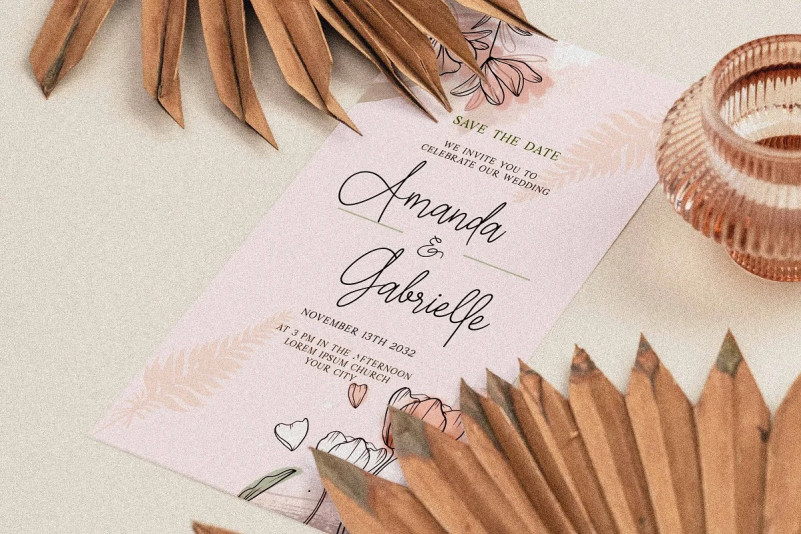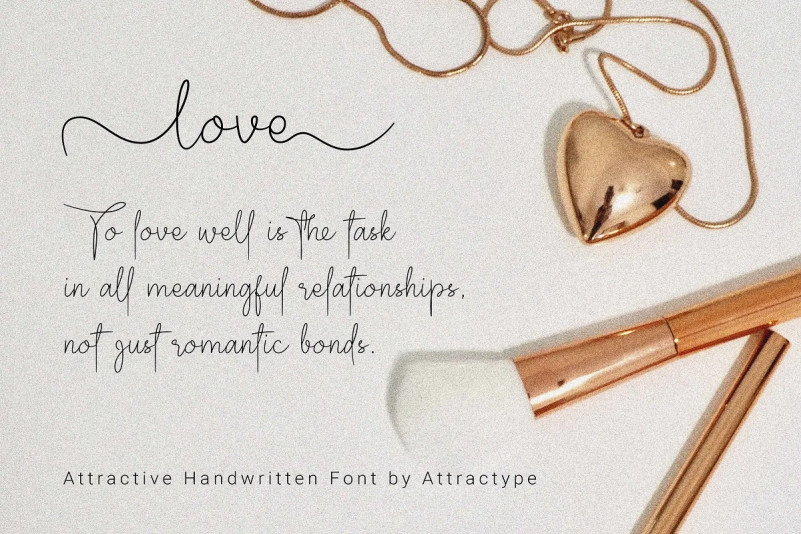
Scriptone Font
Scriptone Script Font is a attractive handwritten font with standard alphabet, punctuation and multilanguage support including ligatures and alternates to maintain a natural and artistic impression. Scriptone font is included right and left swash, so that it can add a beautiful art image to your work.